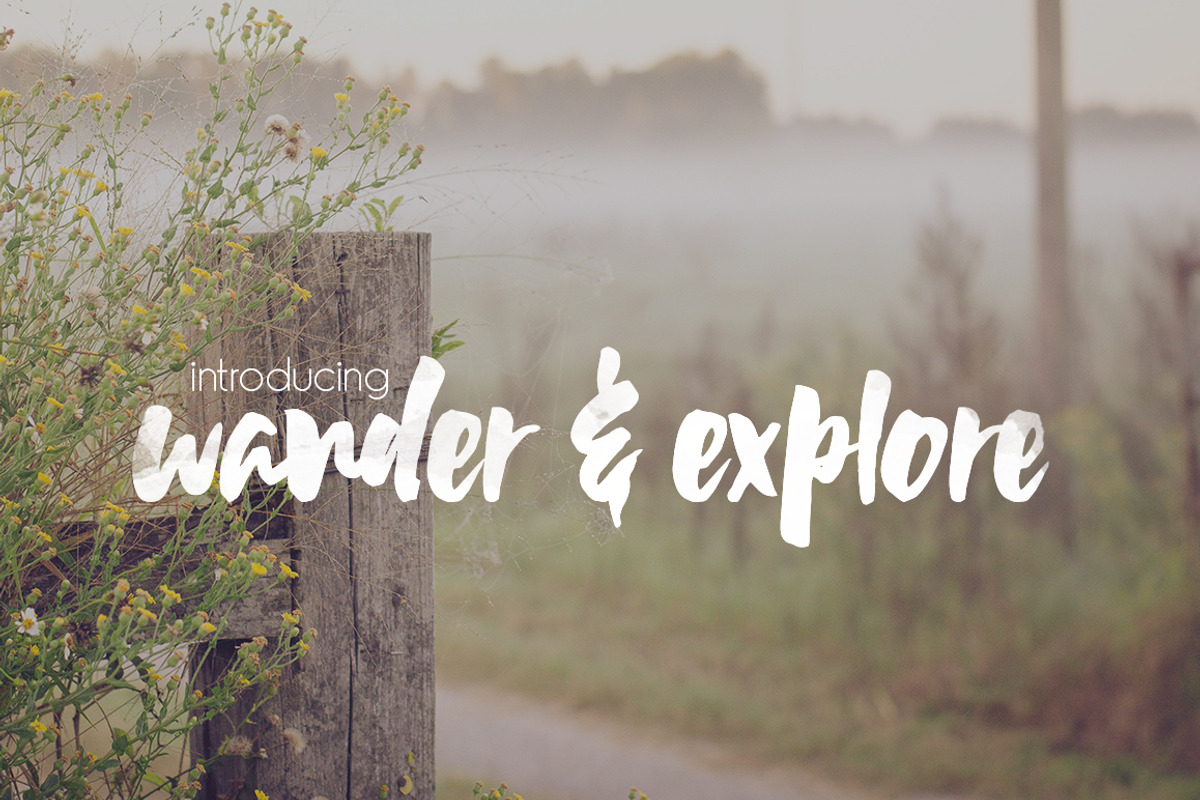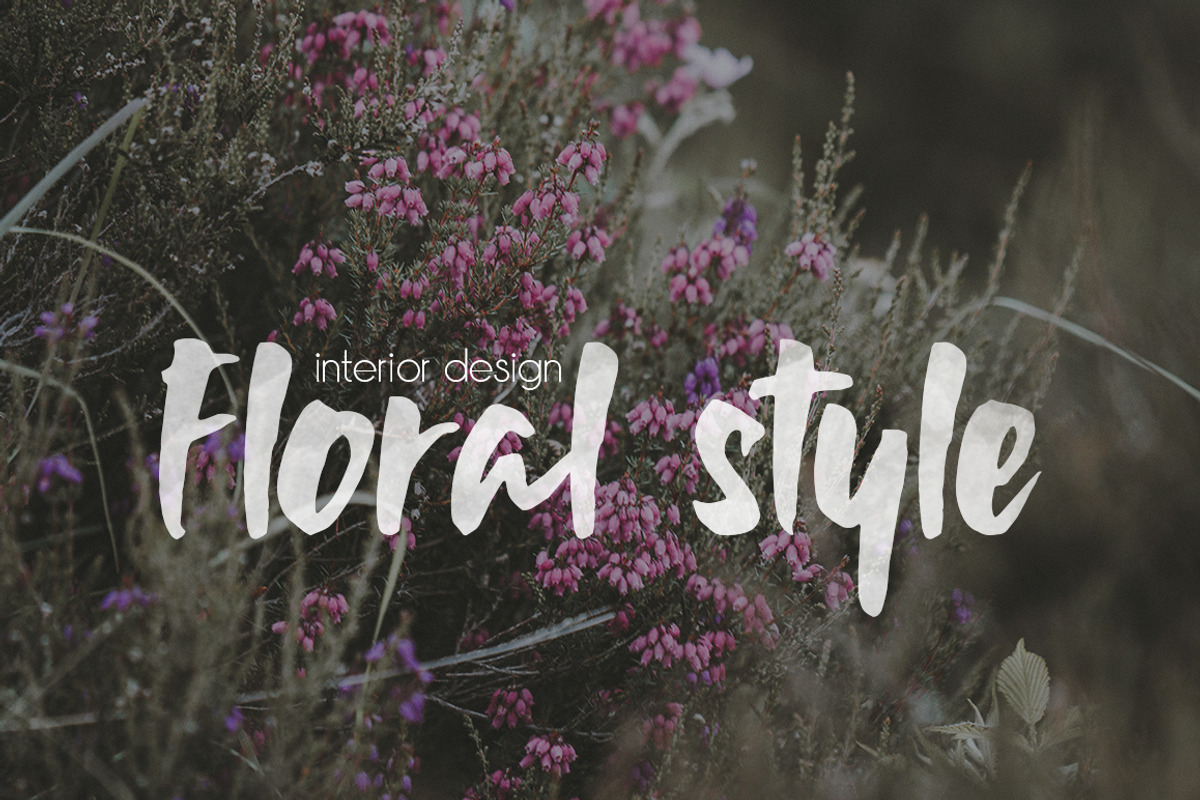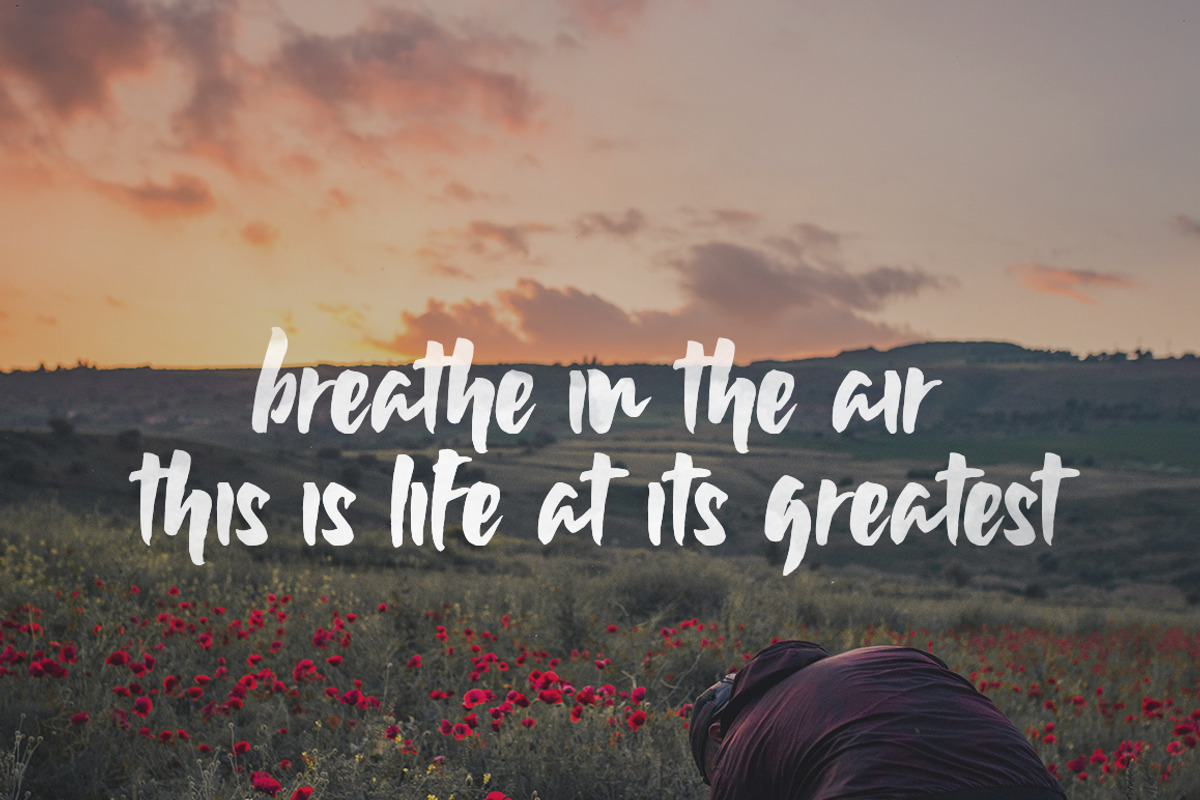
Wildflower Font
Here it is, the brush font you’ve all been waiting for - The Wildflower! Hand painted to ensure uniqueness and a natural flow, we love how effortlessly cool this new font turned out!
Why Wildflower Font is worth a look
Wildflower Font by Salt & Pepper Designs fits naturally into Branding, posters, packaging, typography.